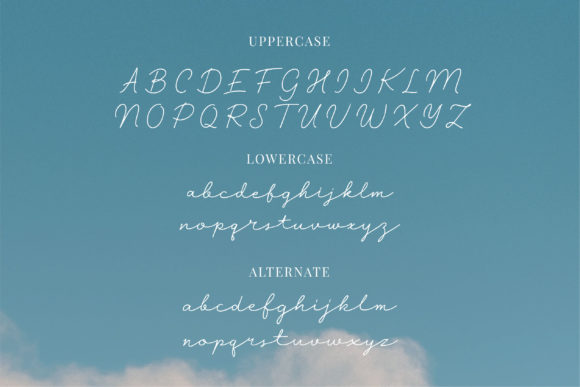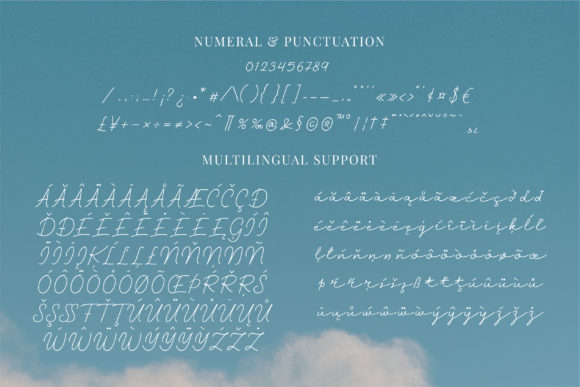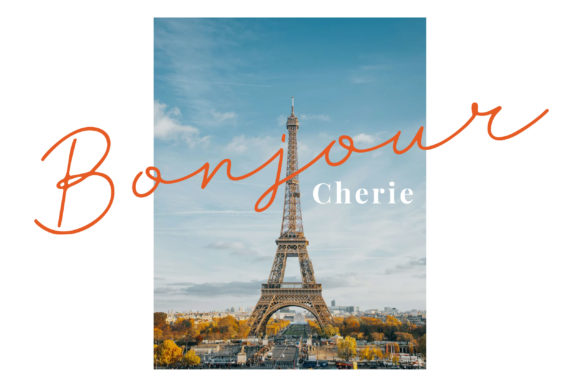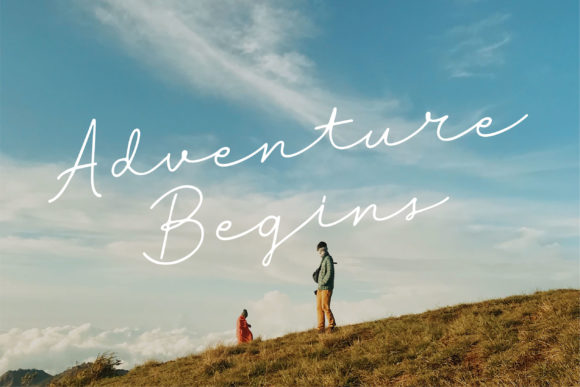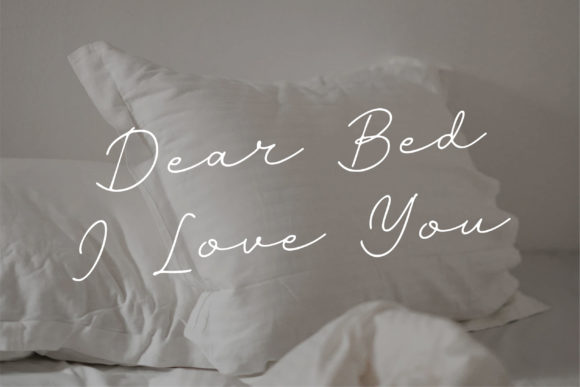
Paslime Font
About Paslime Font
Paslime is a sophisticated and elegant script font that exudes a sense of style and grace. With its lovely flow, clean lines, and smooth vibe, this font adds a touch of modernity and refinement to any design project.
The flowing and graceful appearance of Paslime makes it a versatile choice for a wide range of creative applications. Whether you’re working on branding, designing invitations, creating social media graphics, or crafting any other type of design, Paslime’s delicate and polished aesthetic will enhance the overall look and feel.
When used in branding and logo design, Paslime can convey a sense of sophistication and timeless elegance. Its clean and thin strokes create a harmonious balance, making it suitable for businesses and industries that value a refined and modern image. Whether you’re designing for a high-end fashion brand, a luxurious spa, or an upscale restaurant, Paslime’s stylish and delicate look adds a touch of class to your logo.
Invitations and event materials designed with Paslime exude an air of elegance and charm. Whether it’s for weddings, parties, or special occasions, the font’s smooth and flowing lines create a sense of beauty and sophistication that enhances the overall theme of the event. Paslime’s clean and thin vibe ensures that your invitations make a memorable impression on recipients.
Social media graphics created with Paslime captivate audiences with their stylish and delicate appearance. Whether you’re sharing inspirational quotes, showcasing products, or promoting an event, the font’s elegant and modern look adds a sense of refinement to your posts.
In addition to its aesthetic appeal, Paslime maintains readability and legibility, ensuring that your message is effectively communicated to your audience. Its versatility and timeless elegance make it a fantastic choice for a wide range of design projects, both in digital and print formats.
Overall, Paslime is a stylish and delicate script font that brings a modern and refined touch to your designs. Its lovely flow, clean lines, and smooth vibe make it a hit for various applications, including branding, invitations, social media graphics, and more. Incorporating Paslime into your projects will add an element of sophistication and elegance that elevates the overall aesthetic.